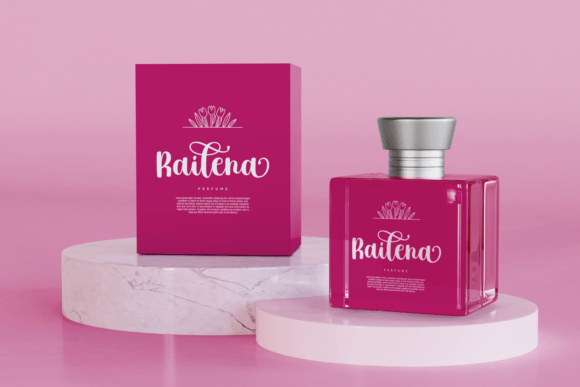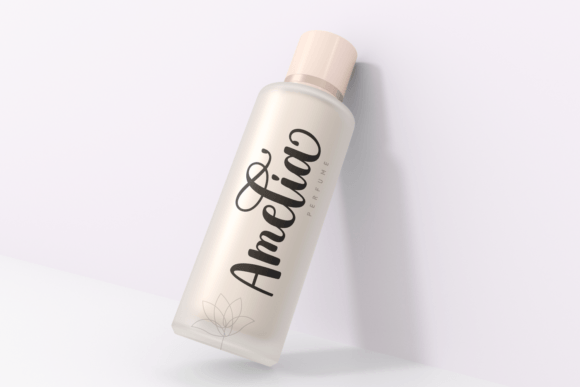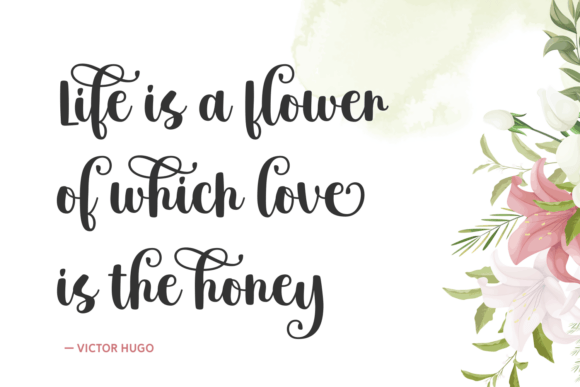
Introduction to Calime Font
Calime is a gorgeous handwritten script font designed to radiate elegance and charm.
Its smooth, flowing curves and bold style make it ideal for adding a luxurious touch to wedding invitations, branding, or decorative designs The vibrant and playful look is balanced with an artistic flourish for standout typography.